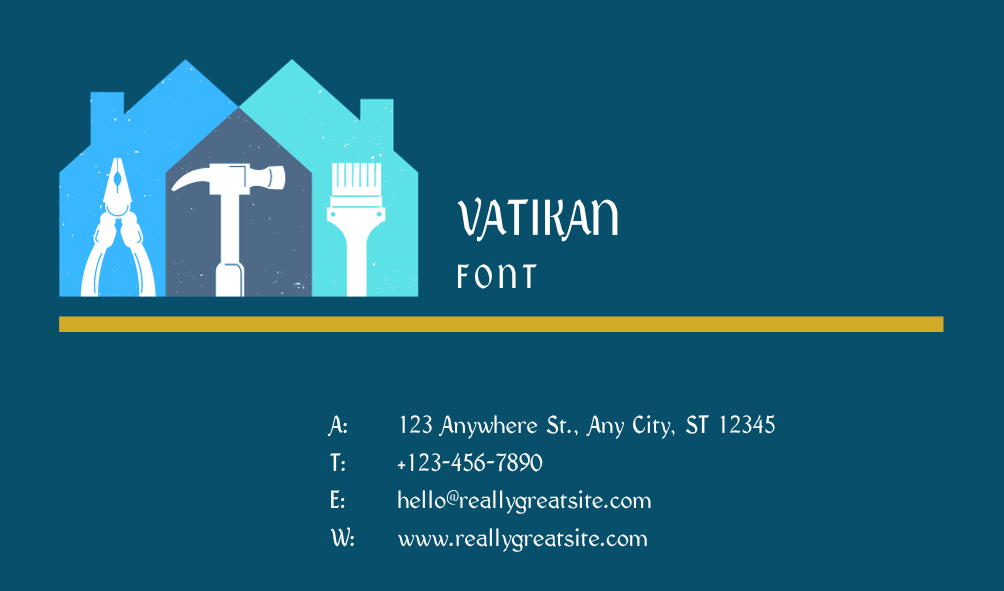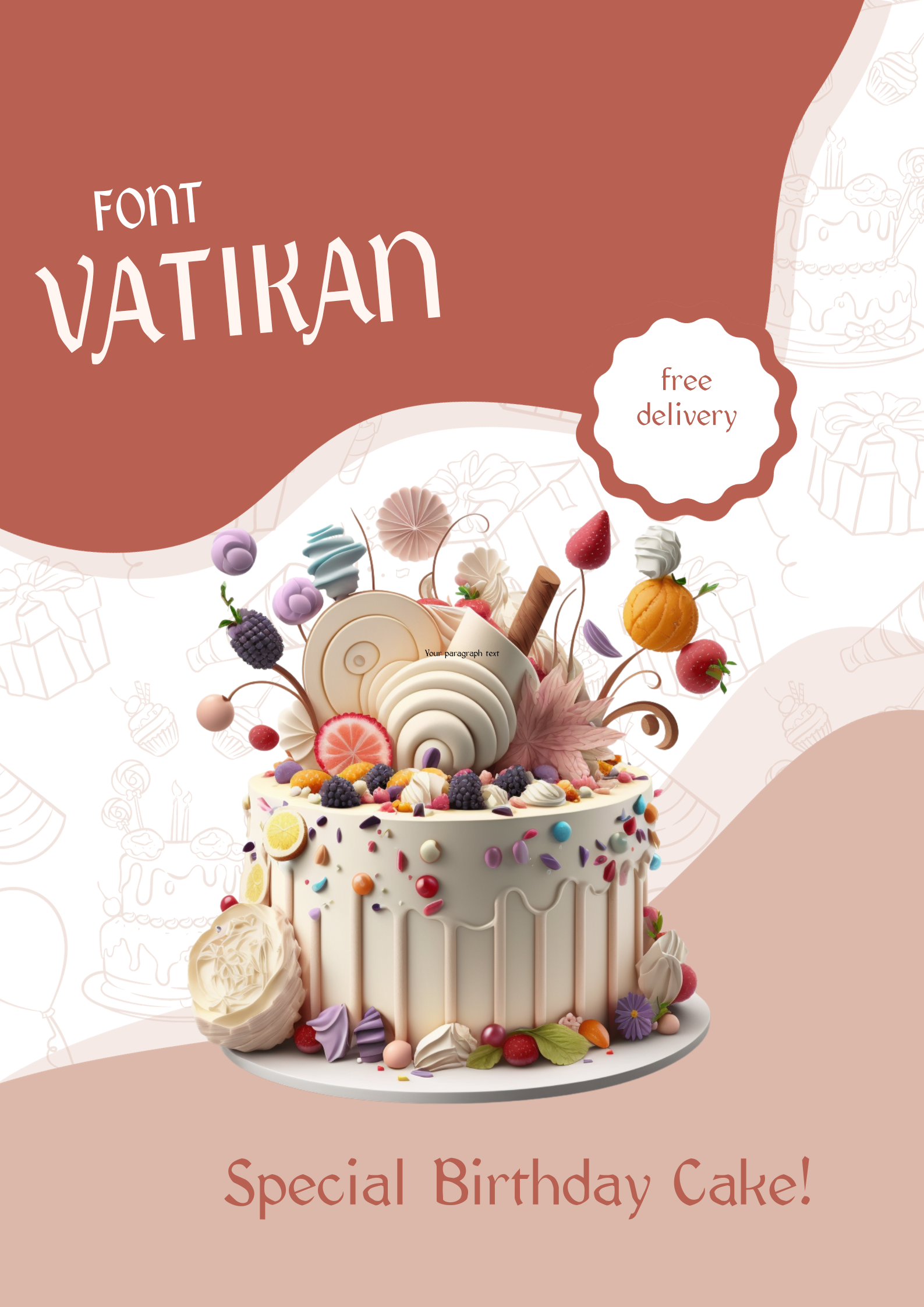
Vatikan is a fun and playful font that is perfect for a variety of designs. The Regular subfamily of this font is versatile and can be used for both formal and informal applications.